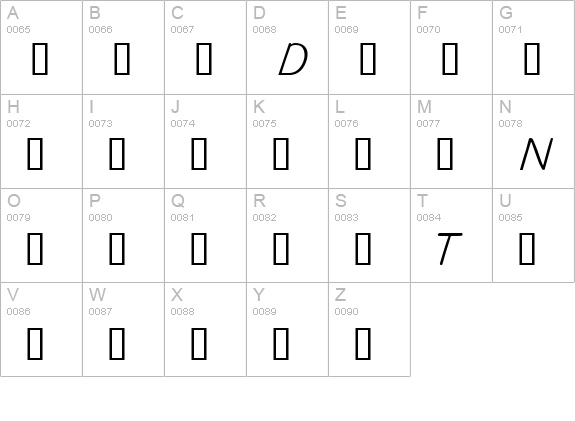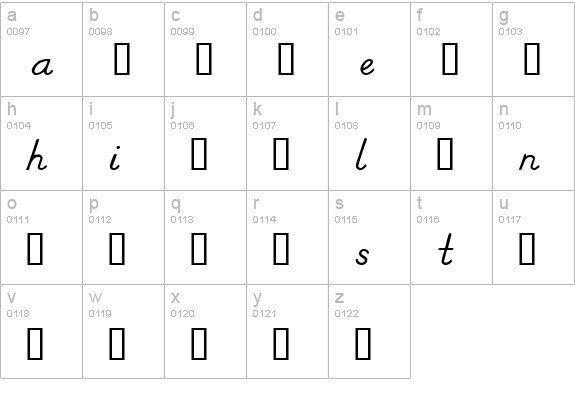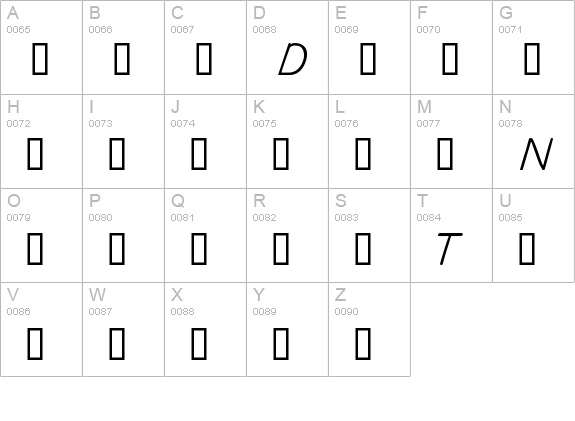
Italic Sample is a distinctive, italic variant in the Italic typeface family \xE2\x80\x94 well suited to design and typography projects.
Introducing Italic Sample font, a stunning and versatile typeface that effortlessly combines elegance with a touch of modernity. This exquisite font is perfect for adding sophistication and style to any project, whether it be a logo, branding materials, invitations, or any other design that requires a touch of finesse. The Italic Sample font features beautifully crafted characters with delicate curves and graceful strokes, making it a truly timeless choice for any designer or creative professional. Its italicized form adds a sense of movement and fluidity, capturing attention and creating a visually captivating experience for the reader. One of the most remarkable aspects of Italic Sample font is that it is completely free to download at FontsMarket.com. This means that not only can you enjoy the sheer beauty and versatility of this font, but you can also do so without any financial constraints. FontsMarket.com offers a vast collection of high-quality fonts, and Italic Sample font is just one of the many gems waiting to be discovered. With Italic Sample font, you have the freedom to explore endless creative possibilities. Whether you're designing for print or digital platforms, this font will effortlessly elevate your projects and leave a lasting impression. Its clean and legible appearance ensures readability across various mediums, ensuring that your message is communicated effectively to your target audience. So why wait? Unlock your creativity and download Italic Sample font today, free of charge, at FontsMarket.com. Experience the beauty and versatility of this font, and let it transform your designs into works of art. Take advantage of this incredible opportunity to enhance your projects and make a lasting impact with the timeless elegance of Italic Sample font.